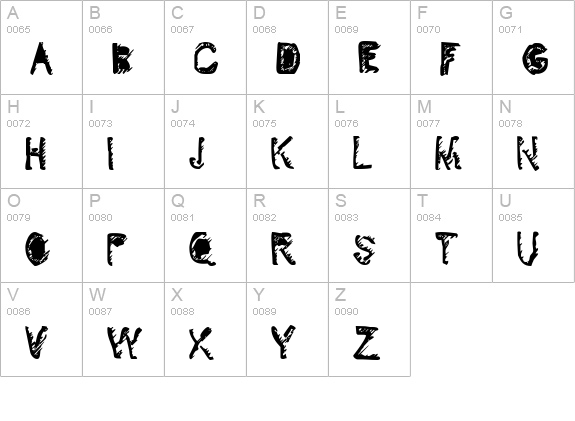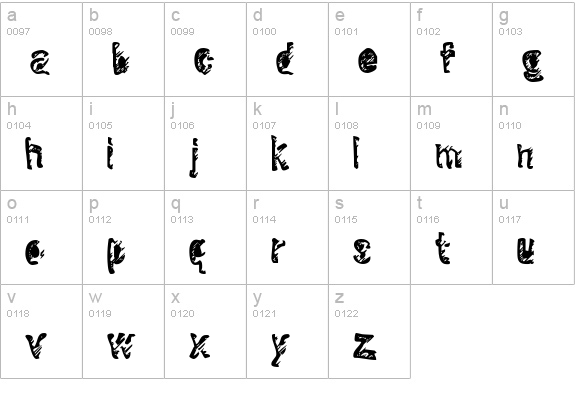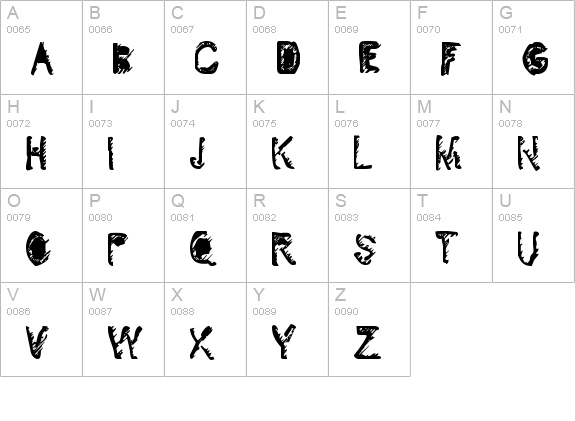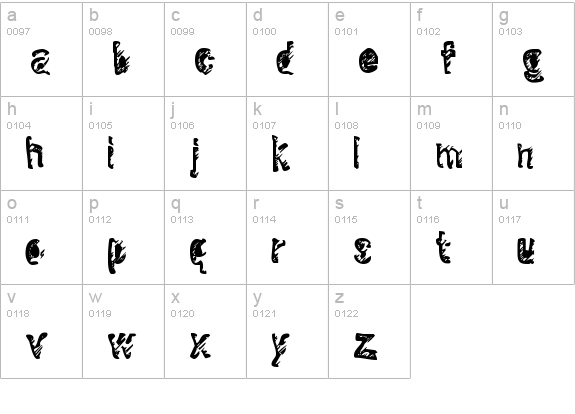
Denigrated Font Details
Denigrated font is a striking and bold typeface that exudes a sense of edgy sophistication. With its sharp angles and distinctive letterforms, this font is perfect for creating eye-catching designs that demand attention. The contrast between thick and thin strokes adds a dynamic element to any project, while the unique styling sets it apart from more traditional fonts. What sets Denigrated font apart is not only its modern aesthetic, but also its versatility. Whether you're designing a sleek urban poster, a cutting-edge website, or a stylish logo, this font will make your text stand out in a crowd. Best of all, Denigrated font is completely free to download at FontsMarket.com. Simply head over to the website and start incorporating this powerful typeface into your projects today. With Denigrated font, you can take your designs to the next level and make a lasting impression on your audience.